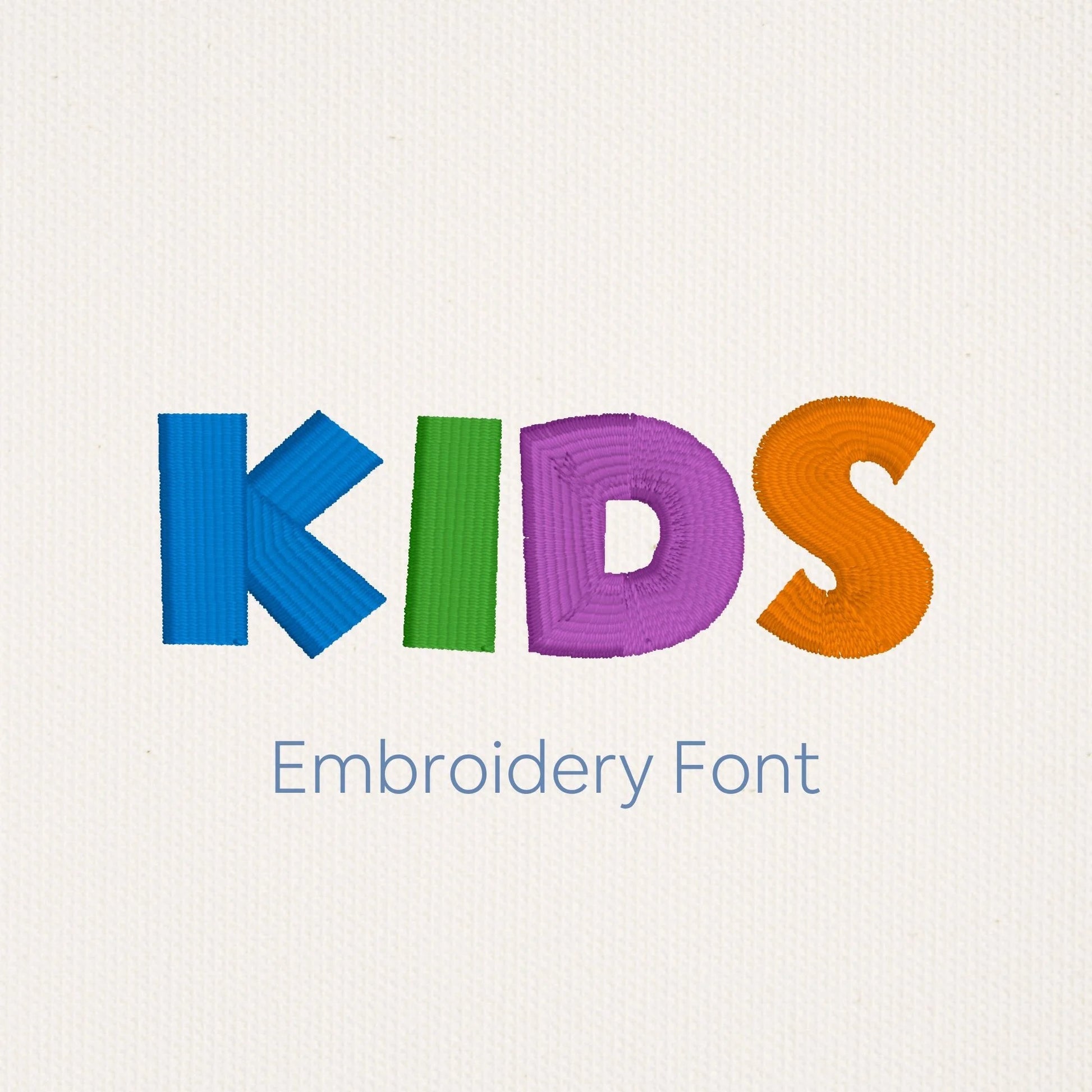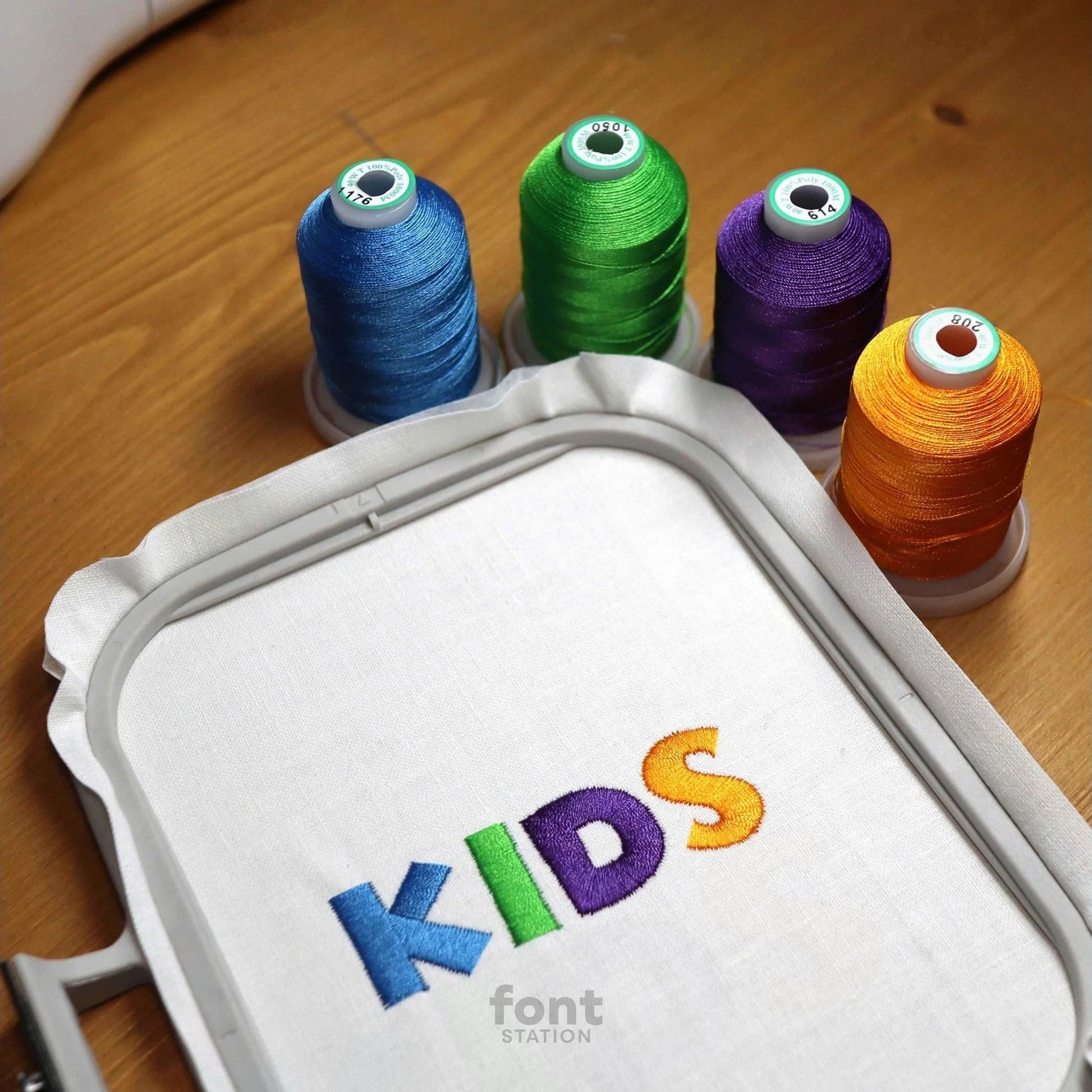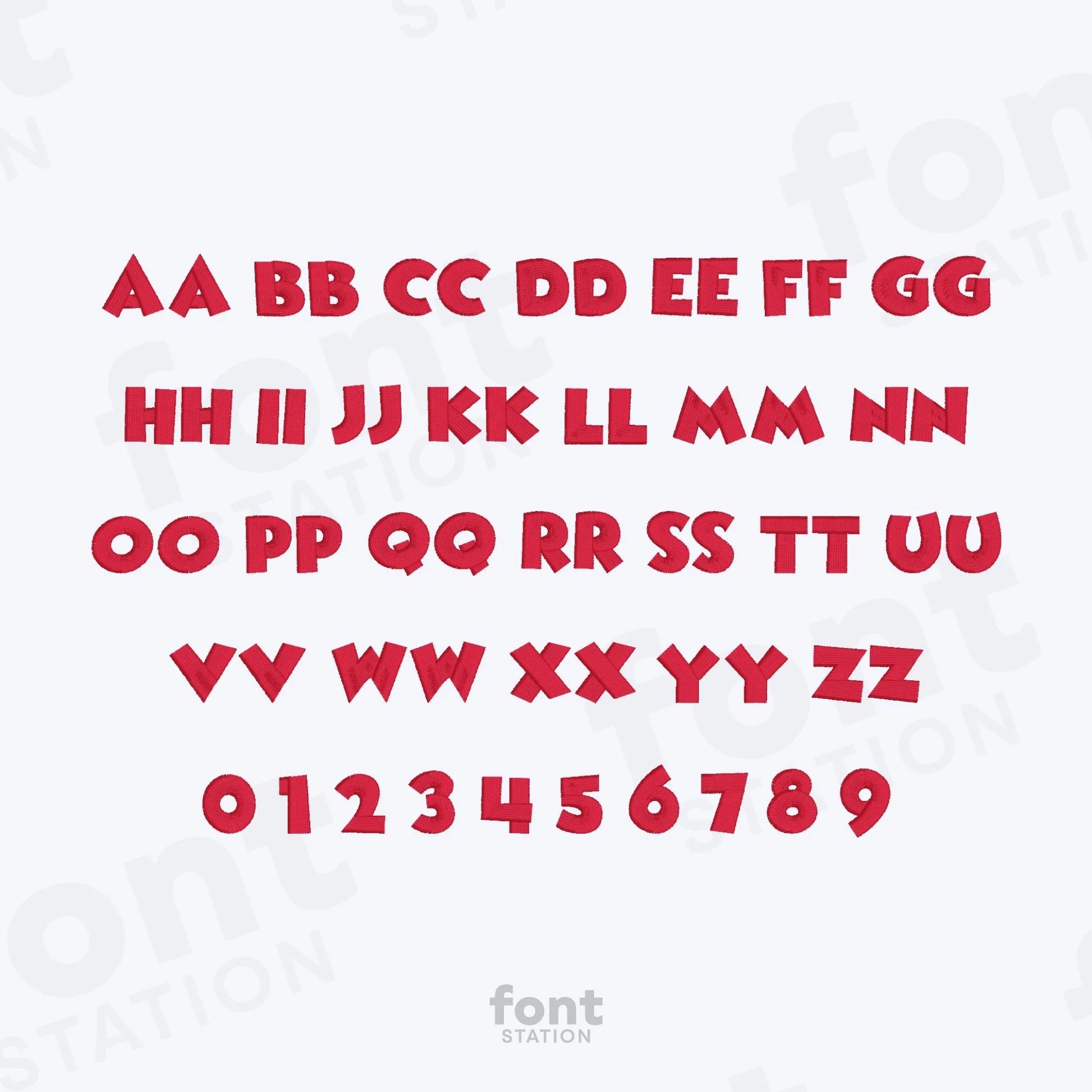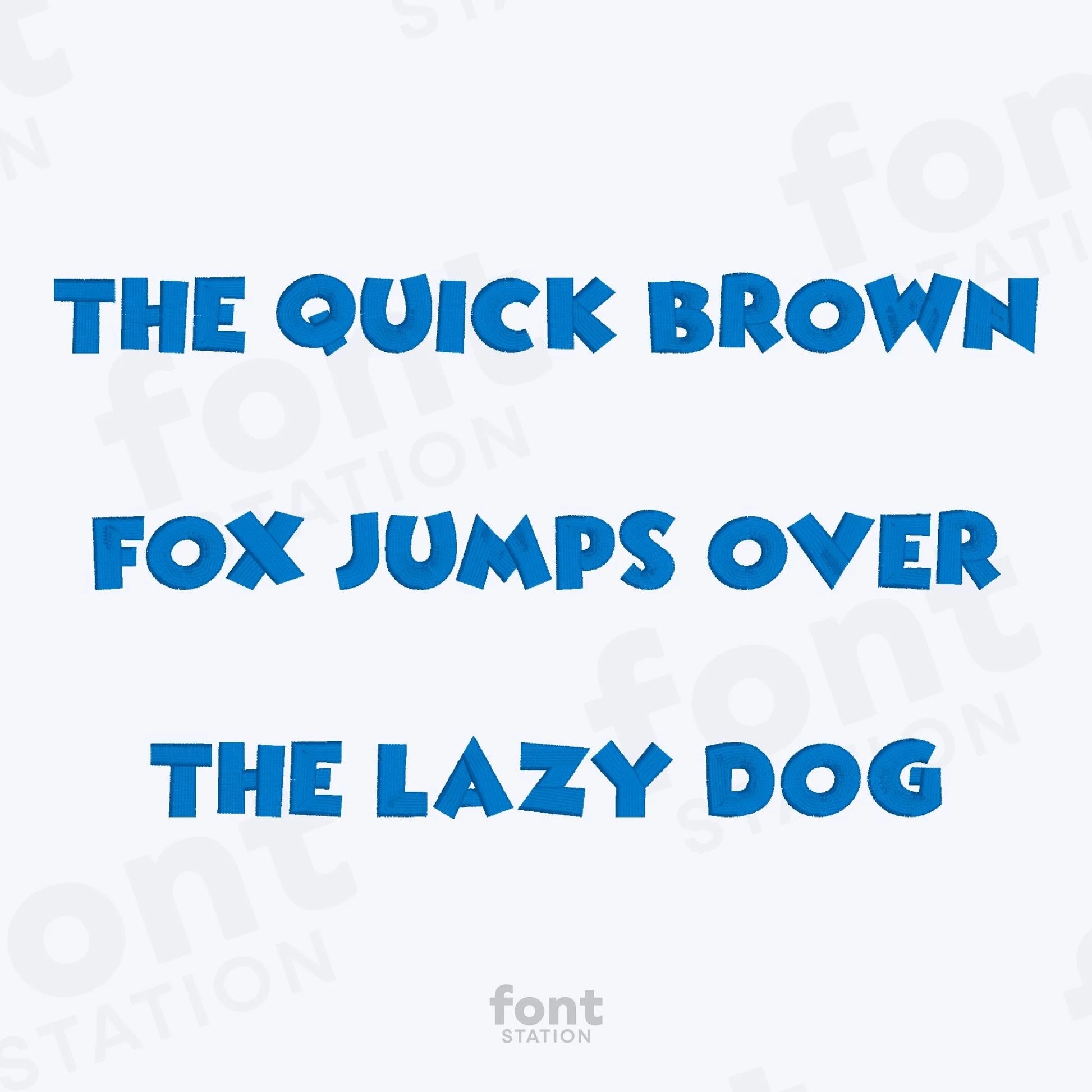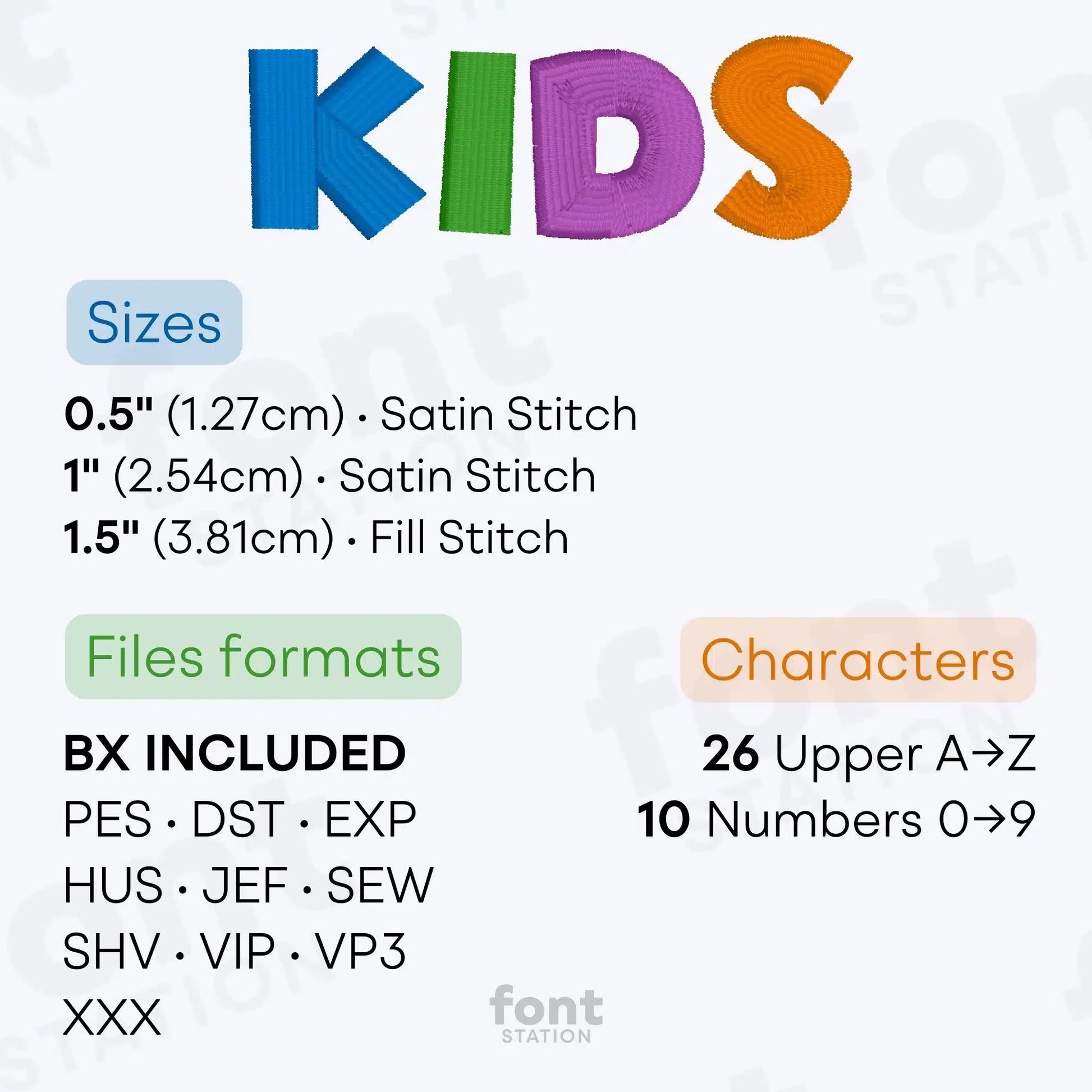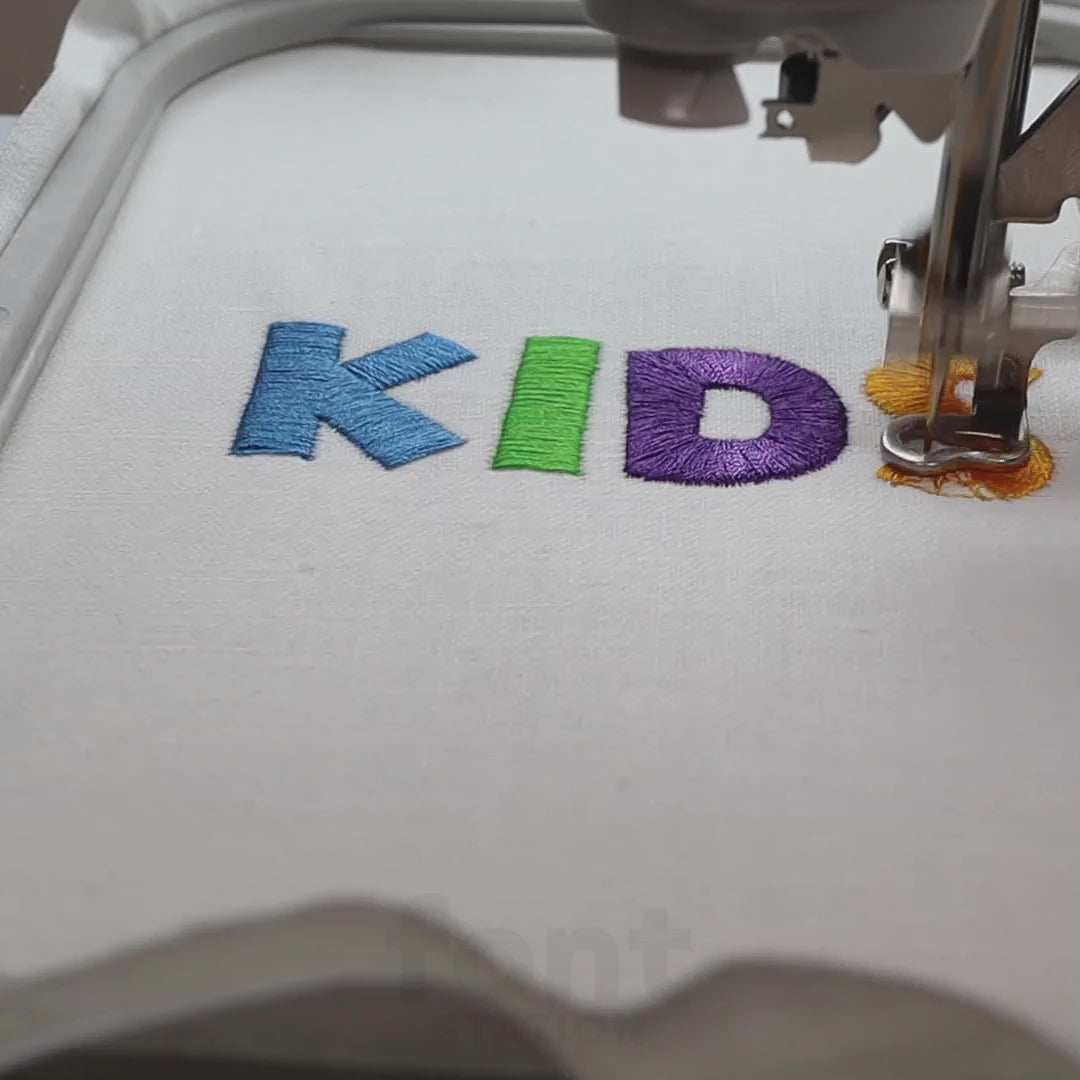
Kids Embroidery Font
Our Kids embroidery font is a fun, cartoon-style alphabet that’s perfect for adding a playful touch to your projects! These machine-ready letters are ideal for children's clothing, gifts, and cute accessories.
About the Kids Embroidery Font
Add a playful cartoon vibe to your designs with our Kids embroidery font!
Bring your embroidery projects to life with our fun and cheerful Kids embroidery font. This cartoon-style alphabet is professionally digitized for smooth, high-quality stitching on most fabrics. It’s perfect for kids' clothing, accessories, and playful designs, and we can't wait to see what you create with it!